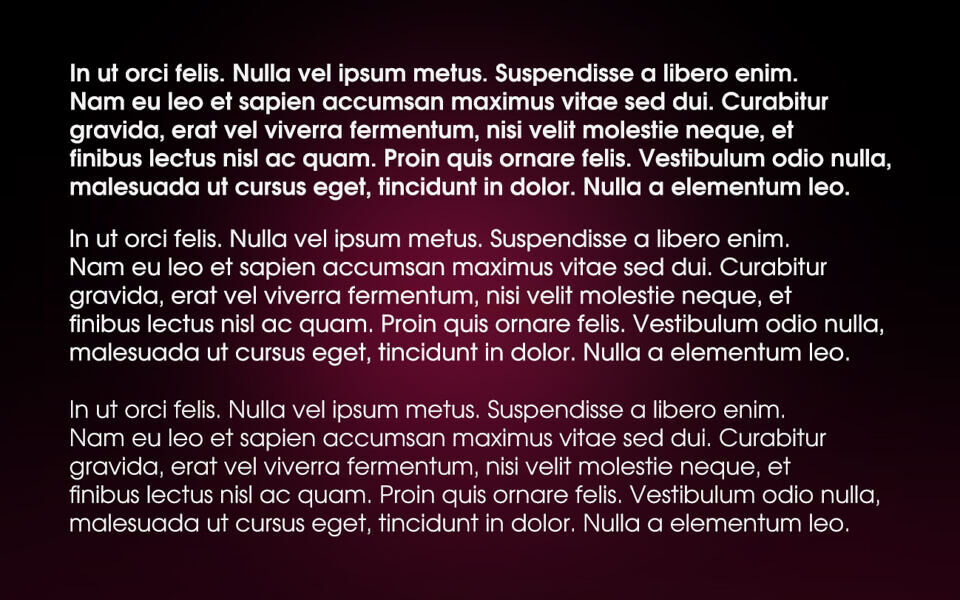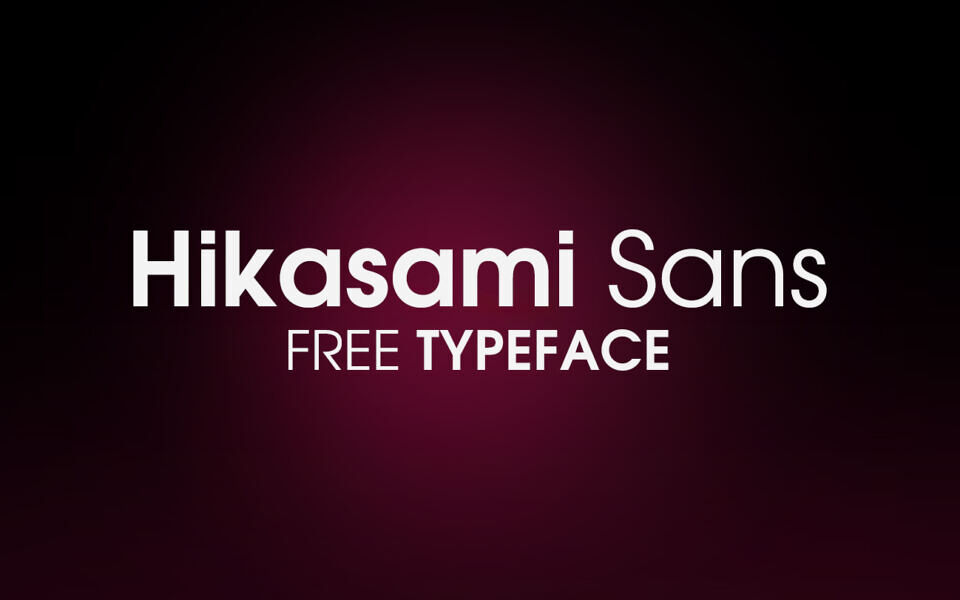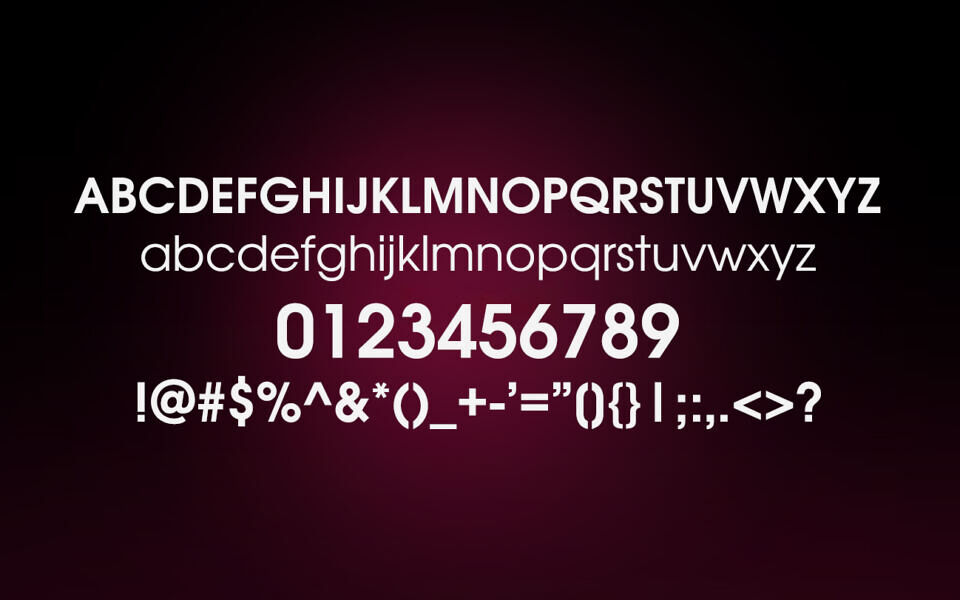
Hikasami Sans is a free modern, geometric sans-serif typeface crafted for simplicity and legibility. Designed with a clean, minimalist aesthetic, it excels in headlines, logos, posters, and large display formats. Its balanced proportions and smooth lines ensure readability across various sizes, making it a versatile choice for both digital and print projects.
This open-source font is available on GitHub, inviting collaboration and customization. Ideal for designers seeking a contemporary yet timeless look, Hikasami Sans blends functionality with elegance effortlessly.